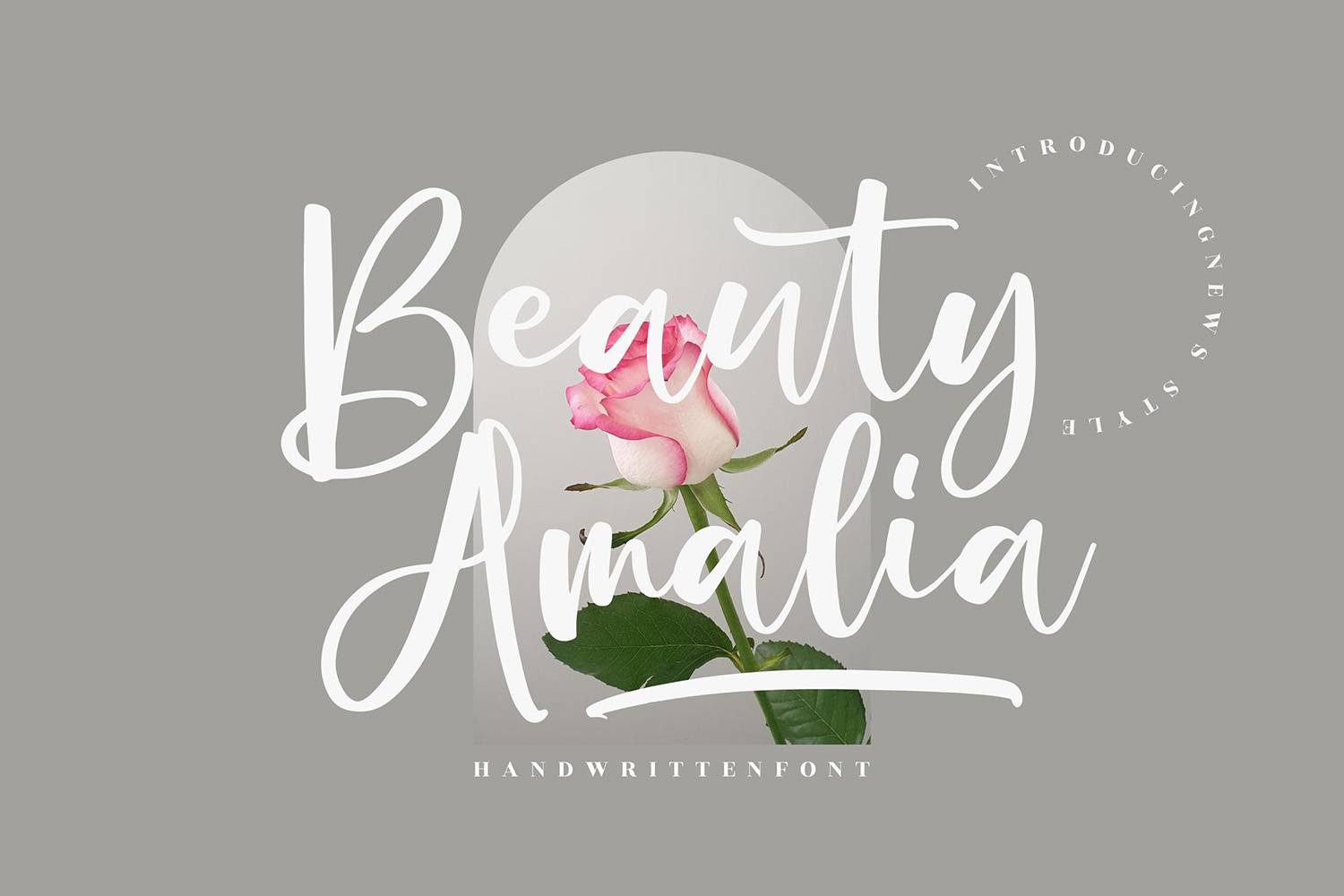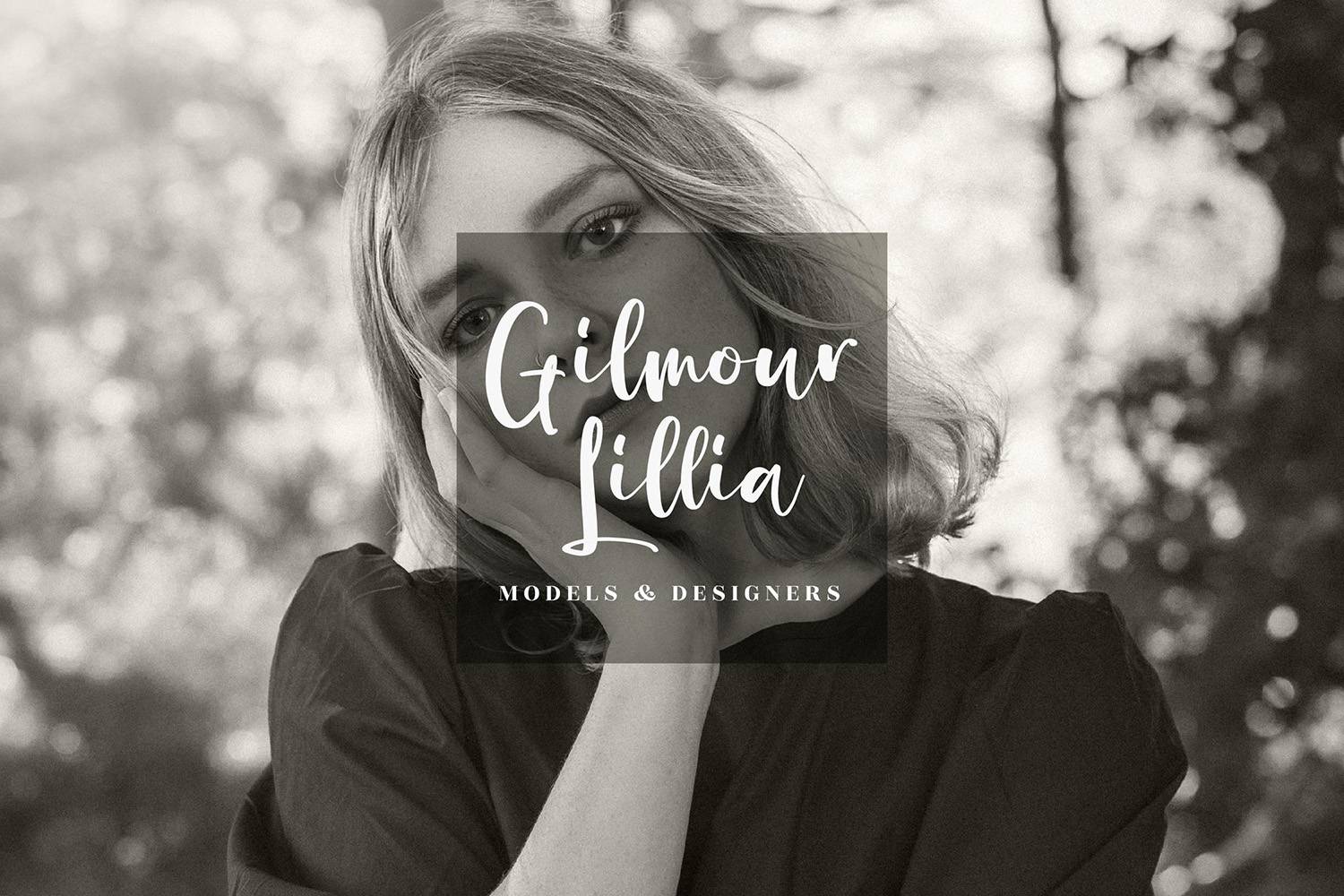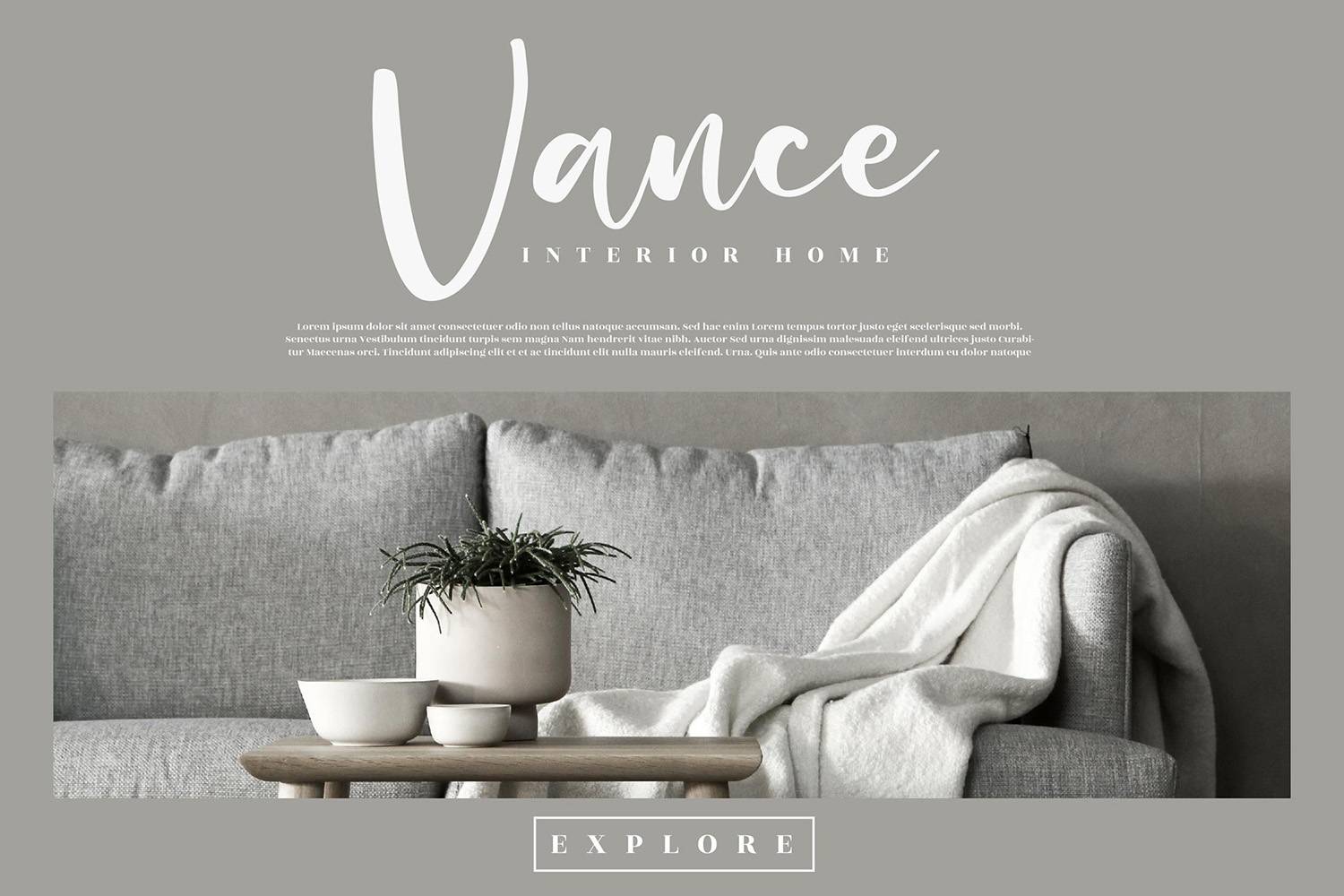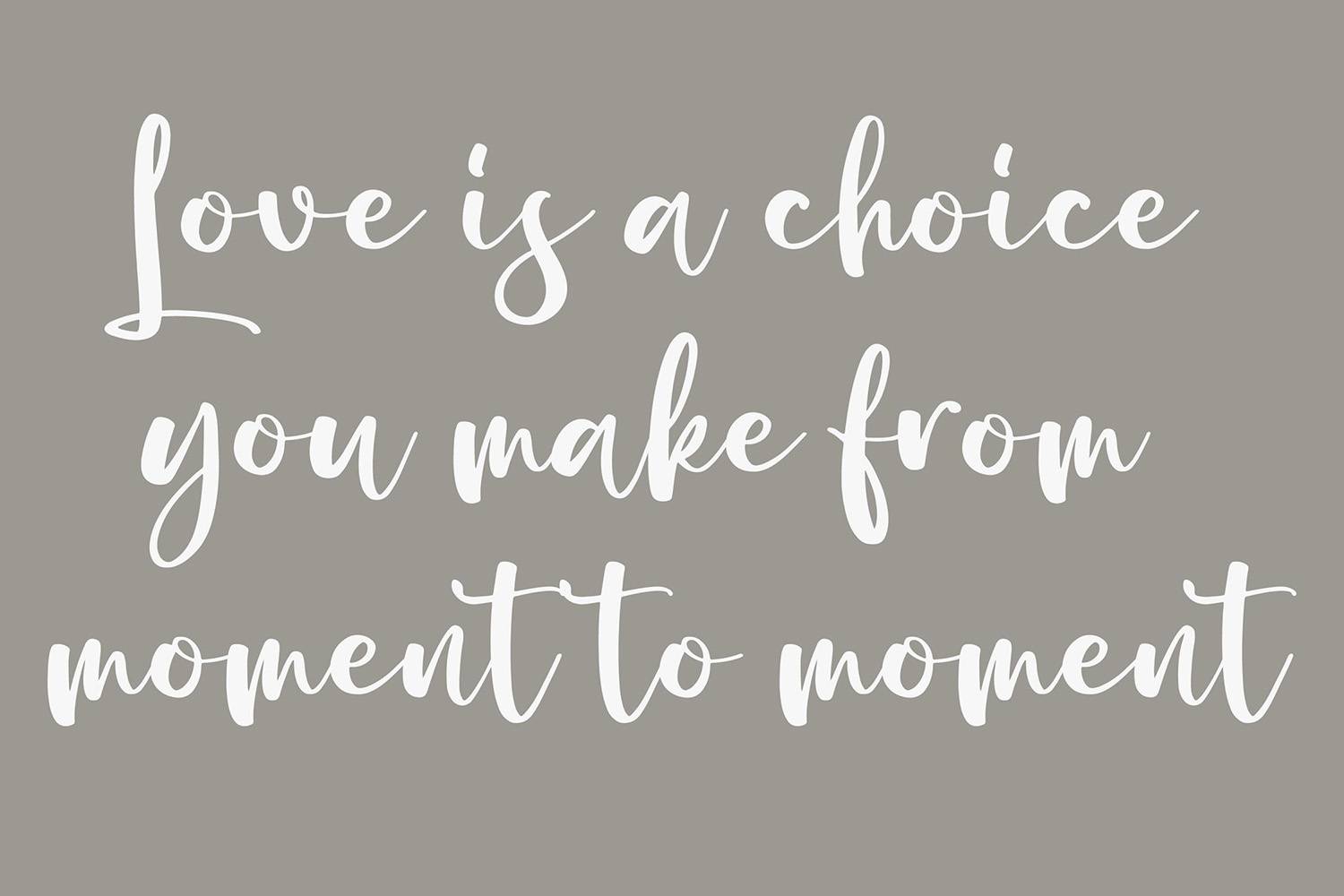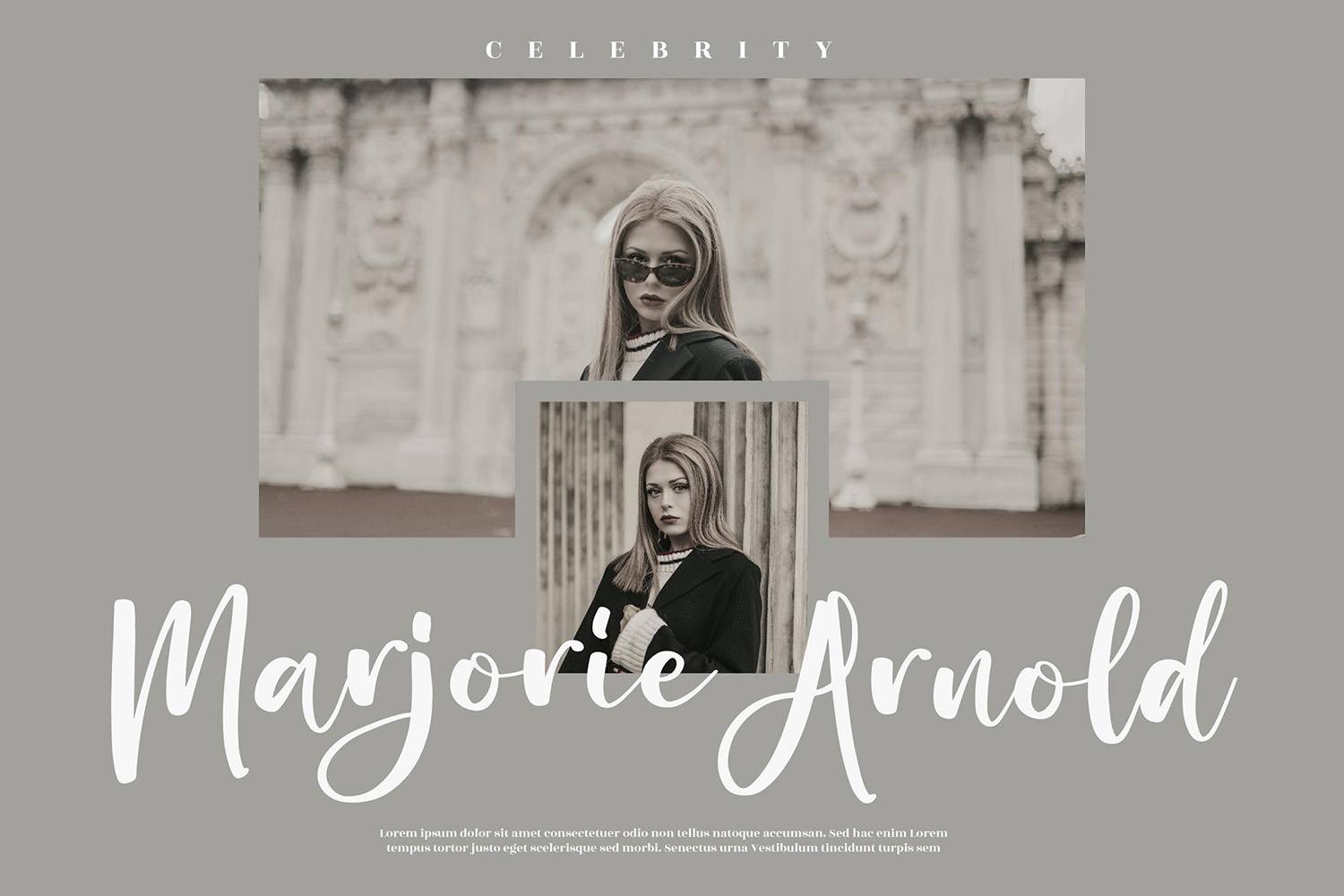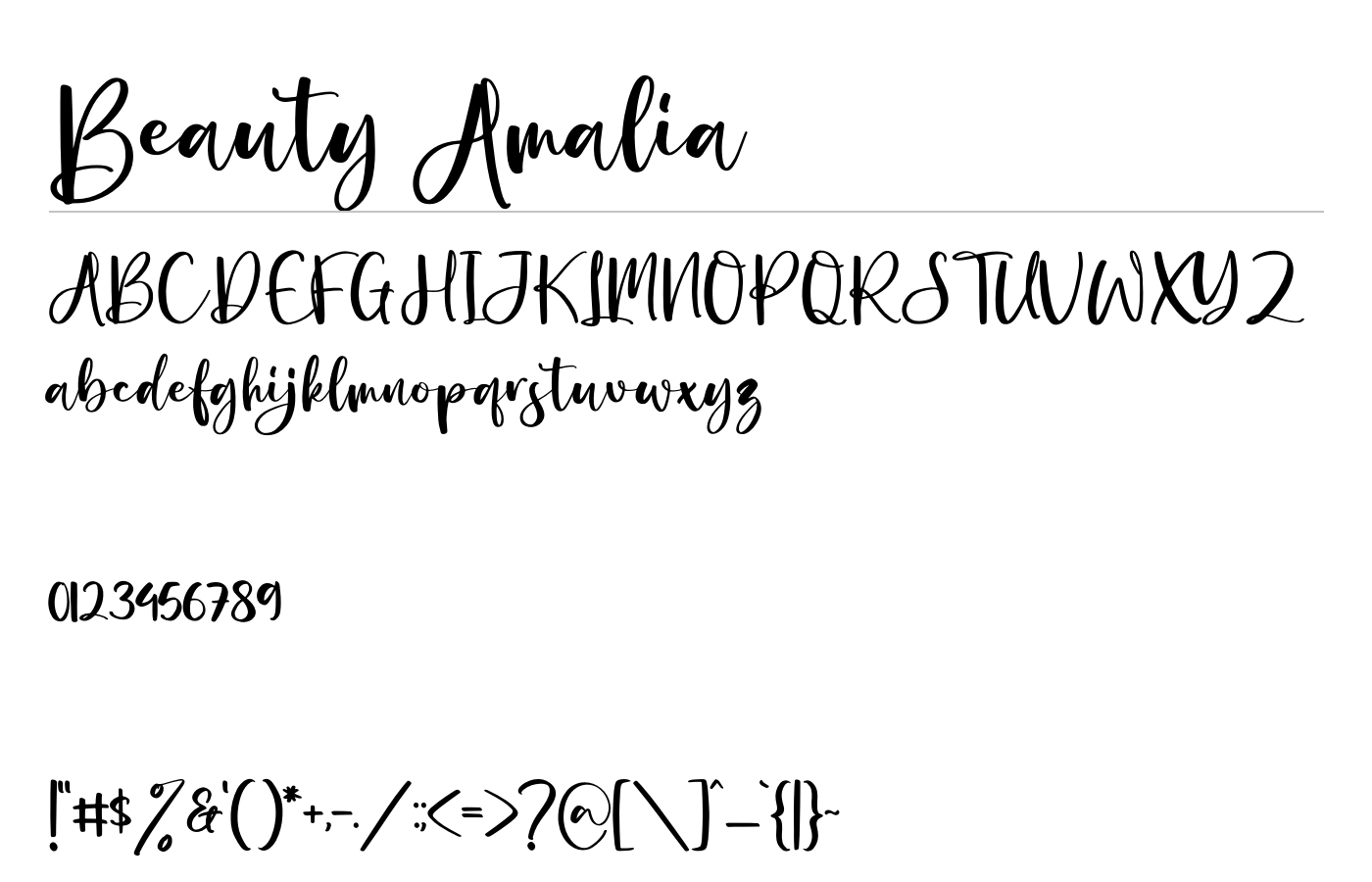
Beauty Amalia is a graceful handwritten script font that features elegant, flowing letterforms with a medium weight and lively stroke contrast. Its friendly and charming style, with distinctive uppercase flourishes and smooth lowercase curves, makes it perfect for beauty, fashion, and lifestyle branding or invitations. This font works best in headlines and decorative text where a personal, stylish touch is desired.
Beauty Amalia Font
About Beauty Amalia Font
| Font family | Beauty Amalia Font |